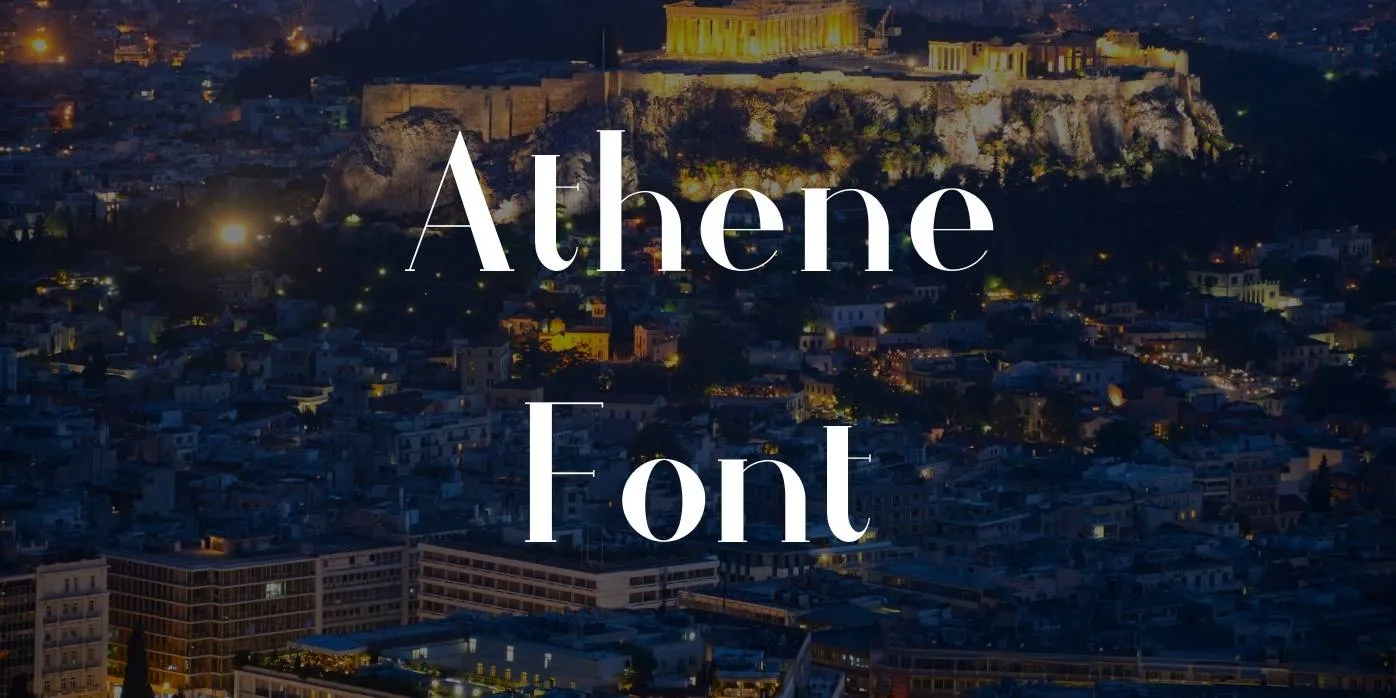
Athene Font
In this post, we introduce a new stylish and tremendous typeface that has massive fame in the designs industry named Athene Font. This gorgeous typeface belongs to the Serif font family. The original designer of this typeface was Matt Ellis. Athene Font has an elegant and timeless look that can be used for a variety of purposes.
This typeface is perfect for creating stylish logos, branding, invitations, quotes, watermarks, signatures, and much more. This font is available in both uppercase and lowercase letters as well as a full set of punctuation marks. This font also supports multi-language characters. It has keen and Bold features that make it popular for different designs.